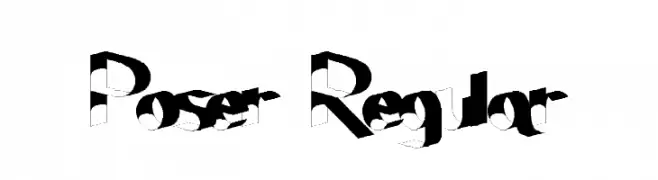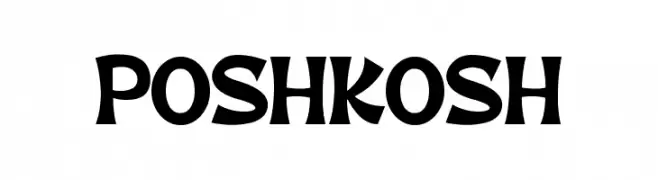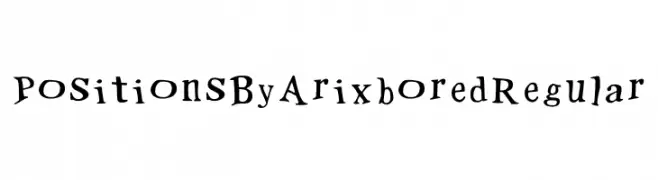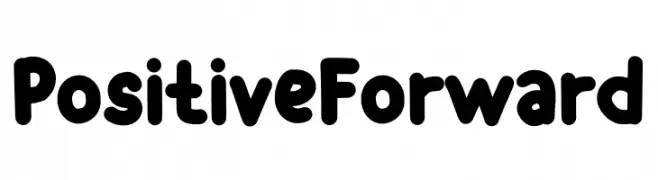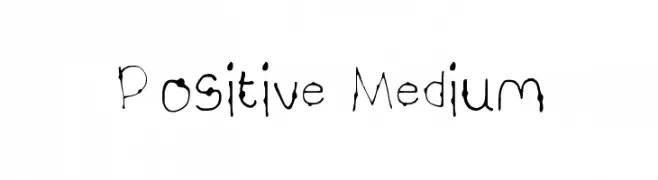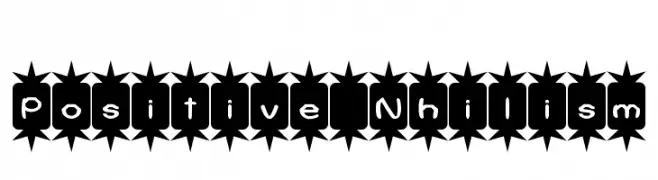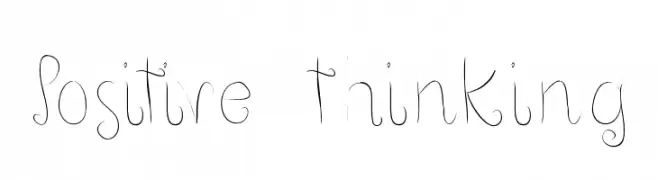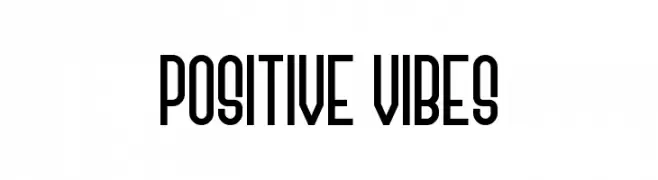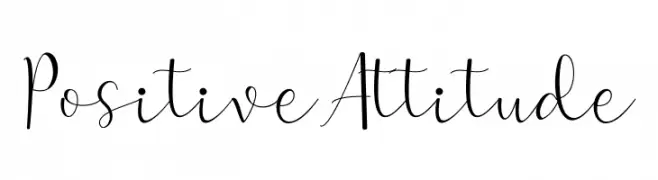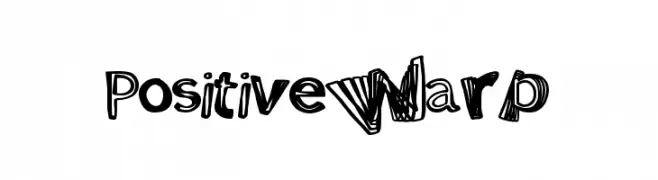
A playful, bold font with exaggerated curves and angles, perfect for creative projects.
A playful, hand-drawn font with bold, irregular characters.
A playful, hand-drawn font with a textured, sketch-like appearance.
A geometric, angular font with a futuristic and technical style.
A playful, handwritten font with tall, narrow letters and a casual style.
A bold, playful font with rounded edges and a friendly appearance.
A bold, decorative font with characters enclosed in starburst shapes, perfect for impactful designs.
A bold, textured font with a playful and dynamic style.
A pixelated, tech-inspired font with a retro digital aesthetic.
An elegant, whimsical font with thin strokes and playful curves.
An elegant script font with flowing, graceful strokes and high contrast.
An elegant, whimsical font with thin strokes and playful curls.
A playful, hand-drawn font with bold outlines and intricate patterns.
A bold, italic font with a modern, dynamic style and tight character spacing.
A bold, geometric font with a strong, industrial style.
A bold, geometric font with a filled, outlined style, ideal for modern and impactful designs.
A bold, 3D geometric font with a shadow effect, perfect for striking headlines.
A bold, playful font with exaggerated curves and a whimsical style.
A hand-drawn, medieval-inspired font with sharp serifs and artistic flair.
A bold, rounded font with a modern yet classic style.
A bold, playful handwritten font with a dynamic and informal style.
A bold, playful handwritten font with thick, rounded strokes.
A playful dingbat font with office-themed icons like push pins and notes.
A bold, geometric font with a modern and striking design.
A bold, geometric font with a modern, industrial feel.
A modern, geometric sans-serif font with clean lines and uniform stroke width.
A modern, geometric sans-serif font with clean lines and consistent stroke width.
A modern, geometric sans-serif font with clean lines and uniform stroke width.